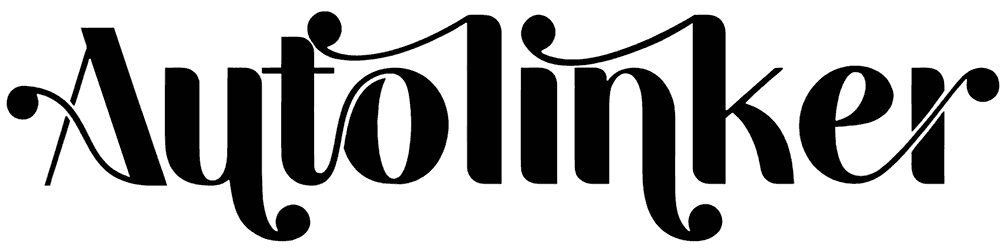
Autolinker Font
In case you are in the middle of designing graphic content such as cosmic product packaging, flyers, gift cards, and greeting cards that require a soft feminine touch, we would like to recommend Autolinker, a luxury serif font.
Due to the precise and delicate style of this magical script font, it has the real ability to bring a sense of professionalism, drama, or dynamic to your artwork and fulfill your dreams.
Autolinker – Fancy Ligature Font is a well-balanced contemporary font with beautiful ligatures. It is a display font with moderate contrast that perfect for branding projects, logo, wedding designs, social media posts, advertisements, product packaging, product designs, label, photography, watermark, invitation, stationery, and any projects, it makes with a high level of legibility.
To make it look more unique, here we prepared some ligatures:
ab ae ah am an ai aj ar ao ap at cb ch cm cn ci cj cp co cr db de dh dm dn di dj do dp dr eb eh em en ei ej eo ep er oo tb th tm tn ti tj to tp tr ub uh um un ui uj uo up ur fl fi ff fj gi gj ri rj
Include Fancy Style on Every Uppercase and Some Lowercase